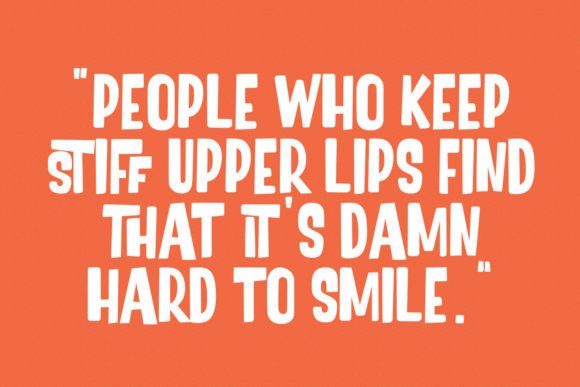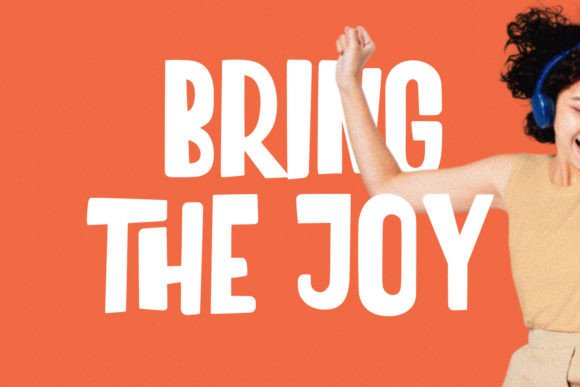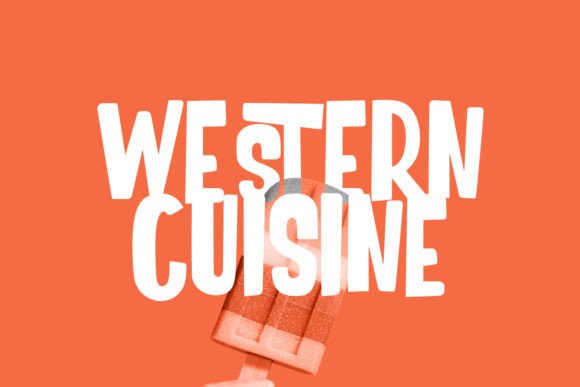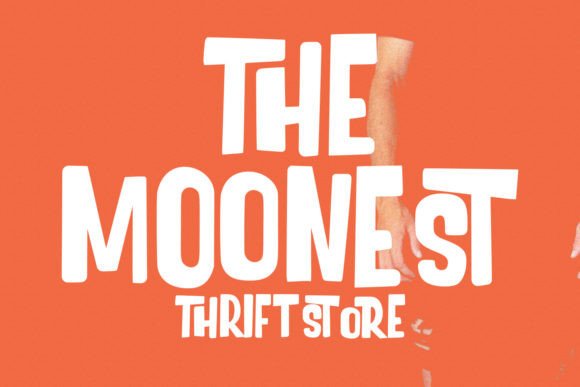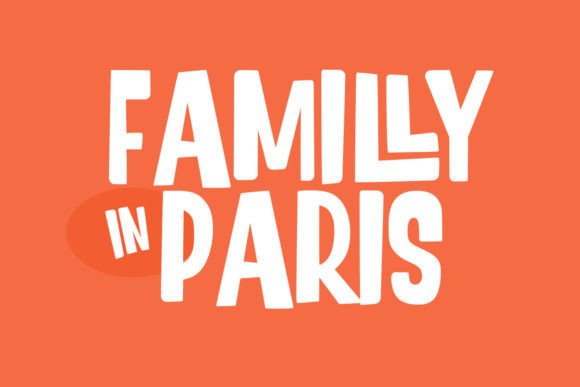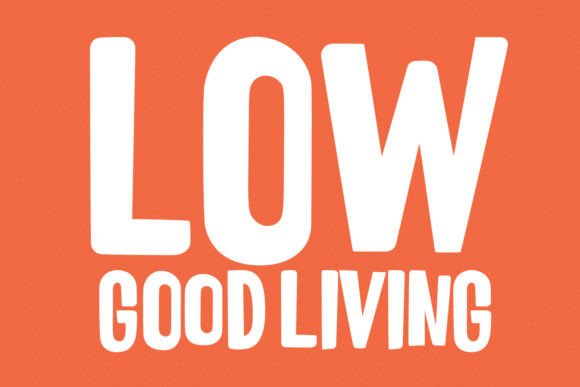
Introduction to Malohallo Font
Have you ever been brainstorming a creative project, and suddenly, a spark of inspiration hits you? You see a vibrant color palette, a quirky illustration, or a playful typography that sets your imagination ablaze. For many designers, this moment is what drives them to create something truly unique and special. And, for those who crave that extra oomph in their designs, the Malohallo Font is here to deliver.
This delightful display font exudes a cheerful and bright personality that’s perfect for adding a touch of whimsy to your designs. With its high-quality design and transparent background, the Malohallo Font is an excellent resource for designers looking to elevate their creative projects. Whether you’re working on a free download or a paid project, this font is sure to bring a smile to your face and a touch of magic to your designs.
Key Features of Malohallo Font
- High-quality design resource with a unique, playful style perfect for creative projects
- Comes with a transparent background, making it easy to customize and integrate into various designs
- Features a wide range of characters, including uppercase and lowercase letters, numbers, and punctuation marks
- Includes 4 different font styles (Regular, Italic, Bold, and Bold Italic) for added versatility
- Perfect for various design projects, including logos, graphics, and digital artwork, where a fun and creative font is needed
Honest Review: Malohallo Font
- ✨ High-quality design: The Malohallo Font boasts a clean, modern aesthetic that’s perfect for a variety of creative projects, from branding to digital design.
- ✨ Transparent background: The font’s transparent background makes it easy to layer and combine with other design elements.
- ⚠️ Limited character set: The Malohallo Font has a relatively limited character set, which may not be suitable for complex or long-form text-based projects.
- ⚠️ Not ideal for small text: Due to its modern design, the font can be challenging to read in small text sizes.
Tips for Getting the Most Out of Malohallo Font
Use the Malohallo Font in conjunction with other design elements to create a cohesive and visually appealing design.
The Malohallo Font is ideal for use in a variety of creative projects, including:
- Branding